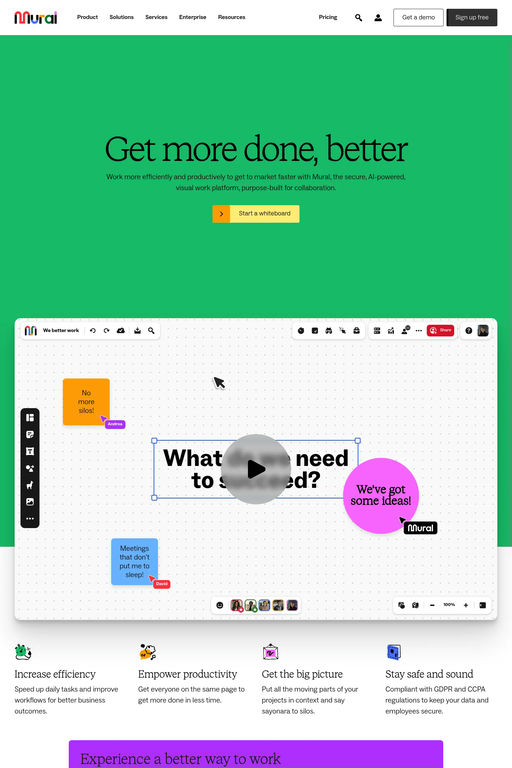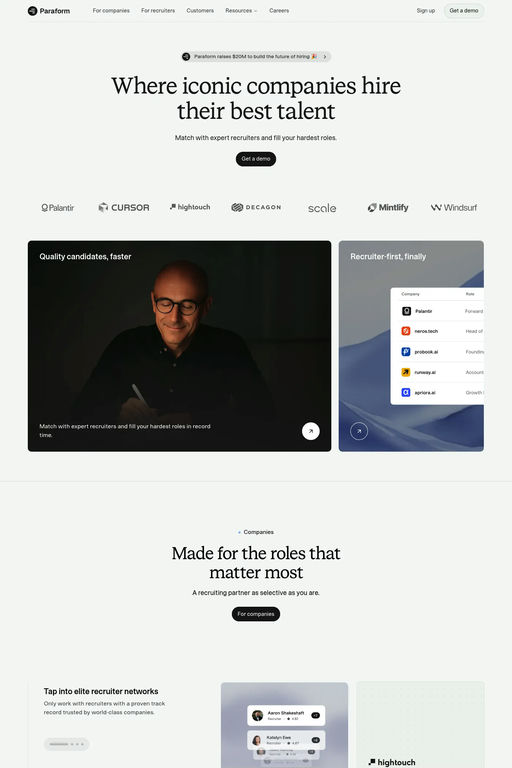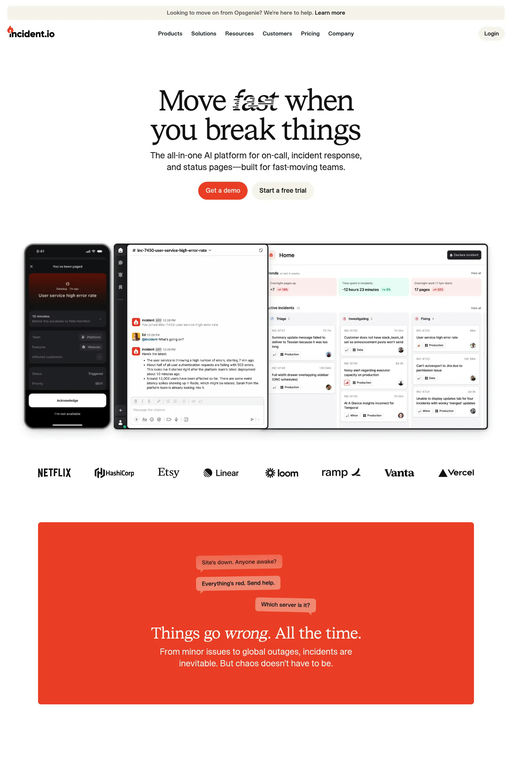
Bureau Serif is a serif typeface from Smuss Type Kiosk.
STK Bureau is a versatile type family that seamlessly blends sans and serif styles. Drawing inspiration from modern typographic icons, it establishes a distinct identity within its design boundaries. STK Bureau offers two styles – Sans and Serif – each available in five complementary weights: Light, Book, Medium, SemiBold and Bold.
A1 features 4 websites using Bureau Serif, including Summation, Paraform, and Mural. They lean towards Minimal, Animated, and Serif design styles, and they’re most often built with Next.js, Framer, and Webflow.